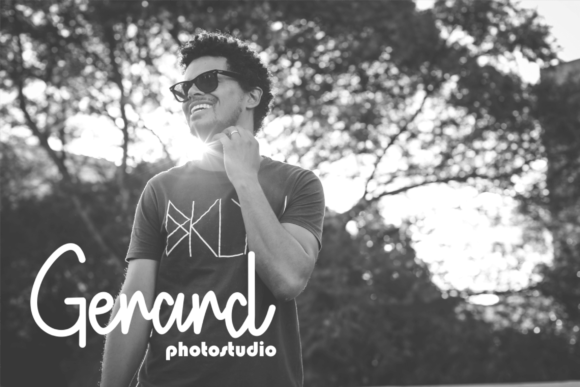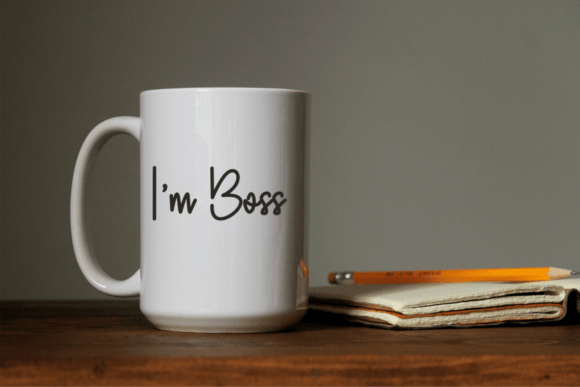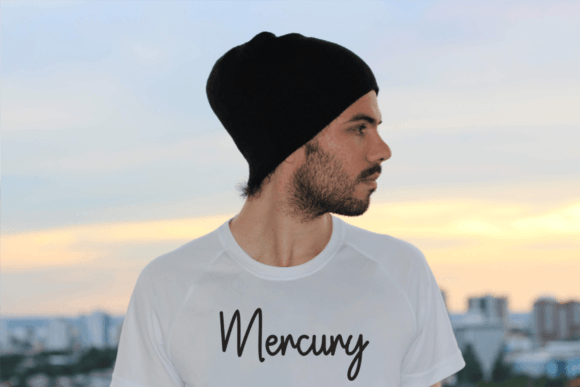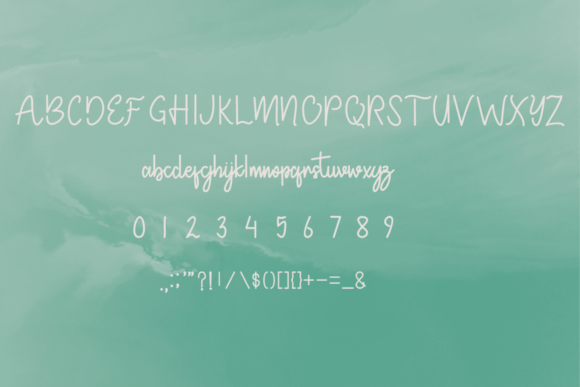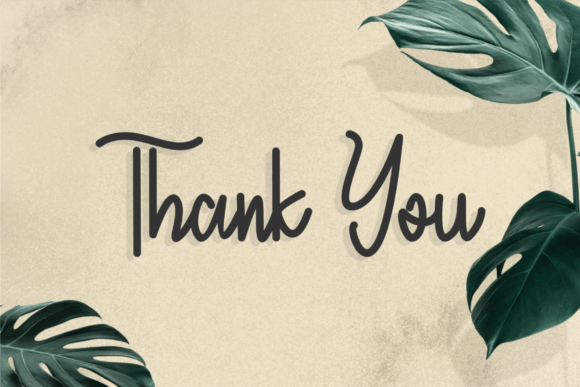
Bacade Font: A Bold and Authentic Handwritten Style for Your Branding Projects
In the world of typography, a font can make or break the visual identity of a brand. When it comes to creating a lasting impression, designers and crafters are always on the lookout for unique and authentic fonts that can elevate their projects. One such font that has been making waves in the design community is Bacade – a bold and authentic handwritten font that is perfect for a wide range of branding projects.
What is Bacade Font?
Bacade is a carefully crafted handwritten font that exudes confidence and personality. Its bold and authentic style makes it an excellent choice for designers and crafters looking to add a touch of uniqueness to their projects. Whether you’re working on a logo, t-shirt printing, or any other branding project, Bacade is sure to make a statement.
Key Features of Bacade Font
- Bold and Authentic Style: Bacade’s bold and authentic handwritten style makes it perfect for creating eye-catching designs that stand out from the crowd.
- Versatility: This font is suitable for a wide range of contexts, from logos and t-shirt printing to export and more.
- Ease of Use: Bacade is easy to read and works well in various design applications, making it a convenient choice for designers.
Use Cases for Bacade Font
Bacade’s versatility makes it an excellent choice for various design projects. Here are some use cases where Bacade truly shines:
- Logo Design: Create a lasting impression with a bold and authentic logo that reflects your brand’s personality.
- T-Shirt Printing: Add a touch of uniqueness to your apparel designs with Bacade’s eye-catching style.
- Branding and Packaging: Elevate your brand’s visual identity with Bacade’s confident and authentic style.
- Digital and Print Media: Use Bacade in your digital and print media projects, such as brochures, flyers, and social media graphics.
Why Choose Bacade Font?
With so many fonts available, why should you choose Bacade for your branding projects? Here are a few compelling reasons:
- Unique Style: Bacade’s bold and authentic handwritten style sets it apart from other fonts, ensuring your designs stand out.
- High Readability: Despite its bold style, Bacade remains easy to read, making it perfect for use in various design applications.
- Time-Saving: With Bacade, you can quickly create stunning designs without spending hours on typography.
Tips for Using Bacade Font Effectively
To get the most out of Bacade, here are some tips for using it effectively in your designs:
- Pair with Complementary Fonts: Combine Bacade with complementary fonts to create visual interest and hierarchy in your designs.
- Experiment with Colors: Try out different color schemes to find the perfect match for your brand and design.
- Play with Sizes: Experiment with different font sizes to create visual hierarchy and emphasis in your designs.
Bacade font is a bold and authentic handwritten font that is perfect for designers and crafters looking to elevate their branding projects. Its versatility, ease of use, and unique style make it an excellent choice for a wide range of design applications. Whether you’re working on a logo, t-shirt printing, or any other branding project, Bacade is sure to make a lasting impression.